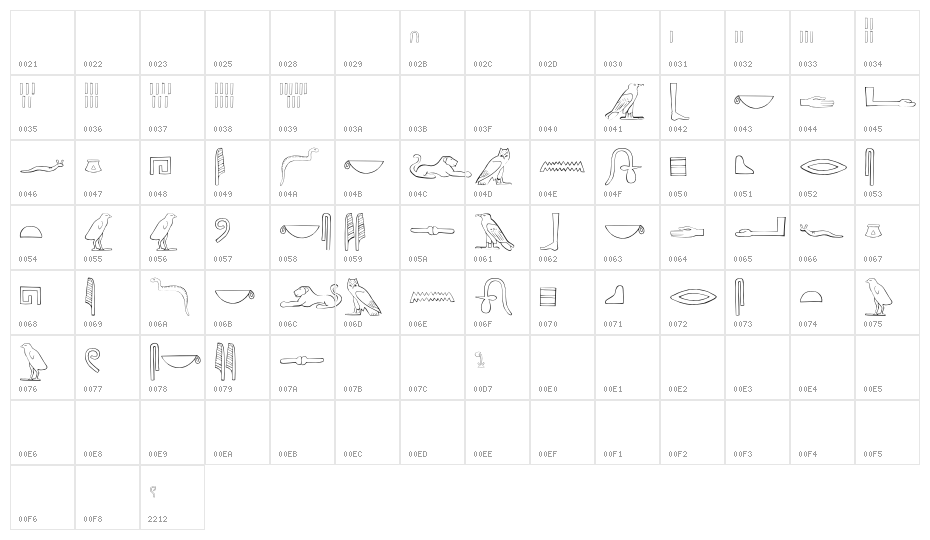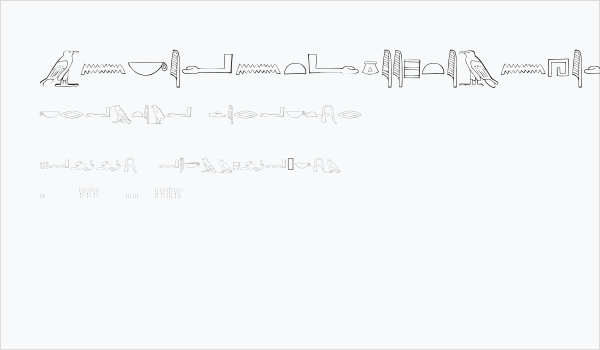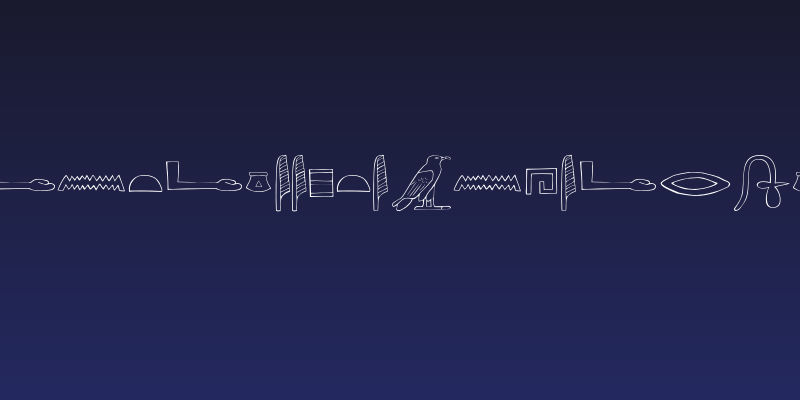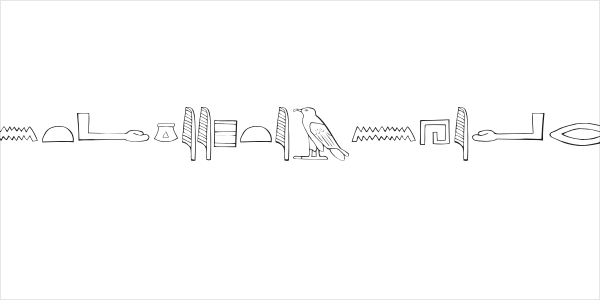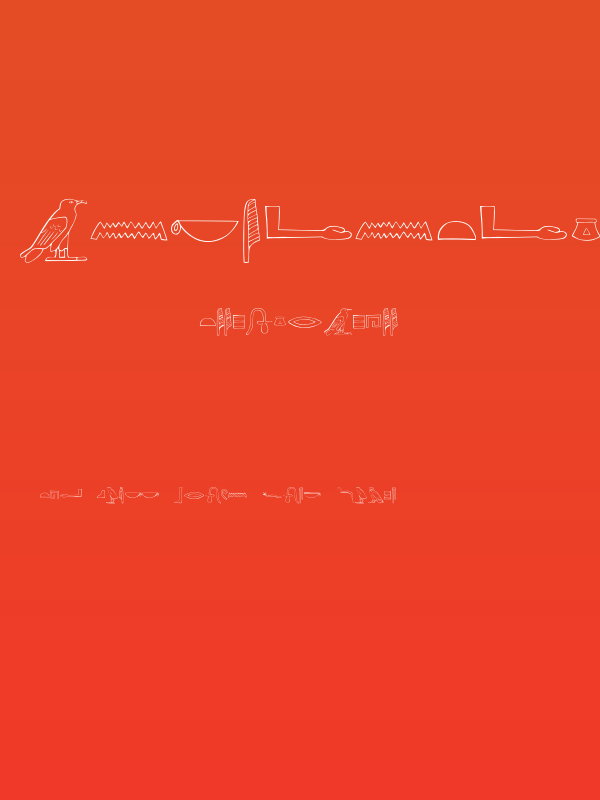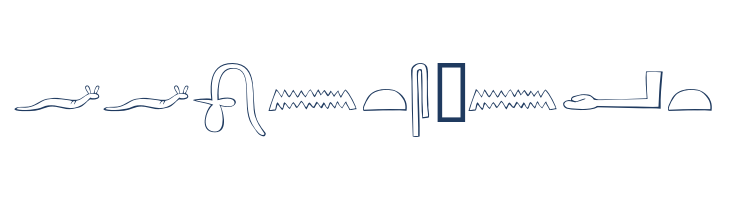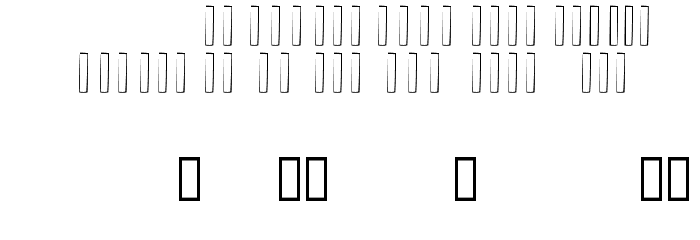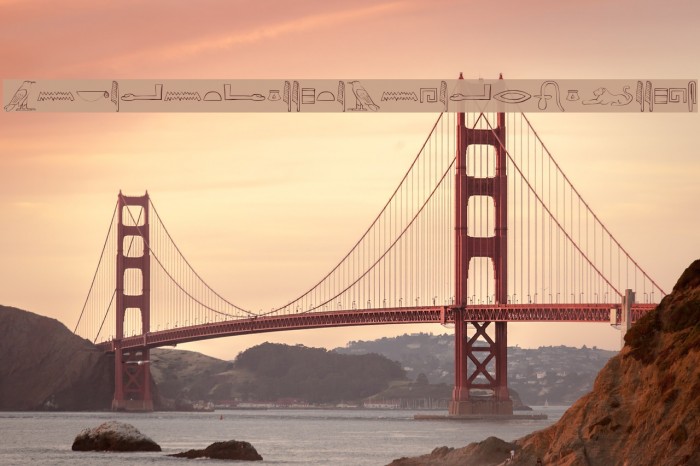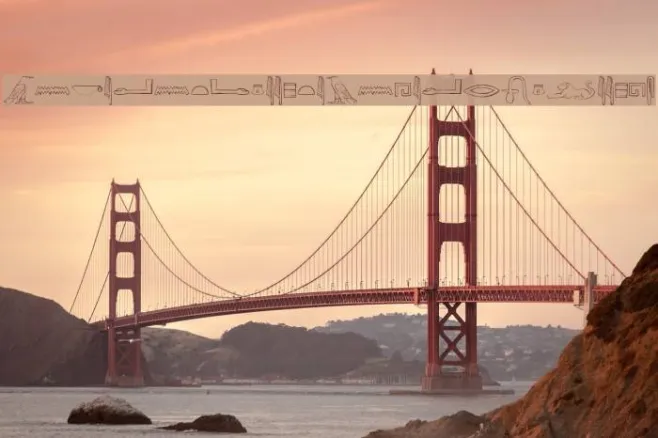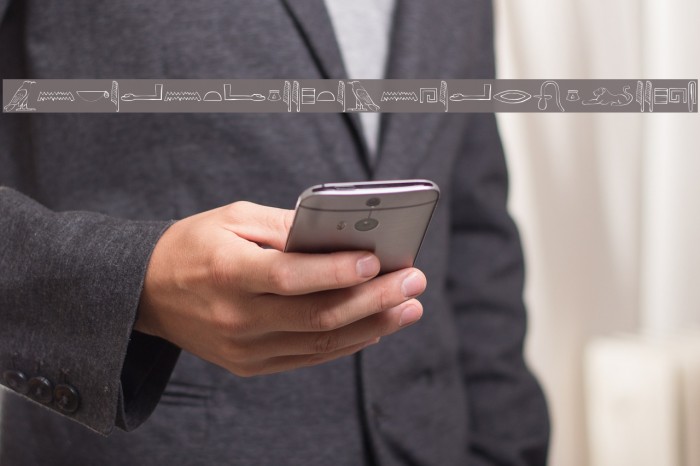
AncientEgyptianHieroglyphs Font
AncientEgyptianHieroglyphs Description
A decorative typeface inspired by ancient Egyptian hieroglyphs, featuring intricate pictorial symbols and glyphs that mimic historical scripts. The characters are highly illustrative, with detailed line work and varying shapes representing animals, objects, and abstract forms.
| Overall Style | Decorative, Historical |
| Use Case | Logos, Headlines, Themed graphics, Educational content |
| Proposed Projects | Historical displays, museum signage, educational materials, themed posters, decorative titles. |